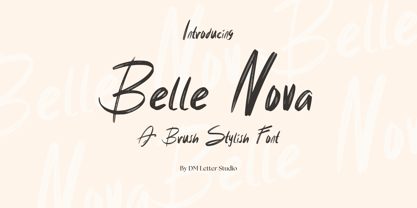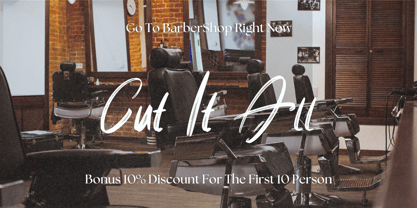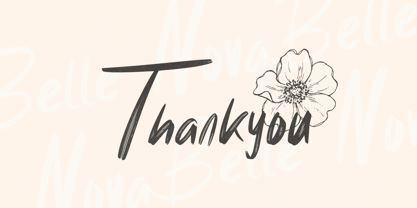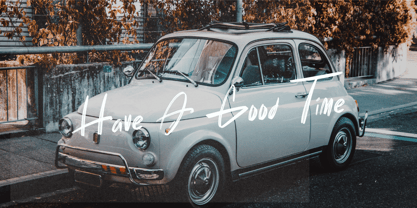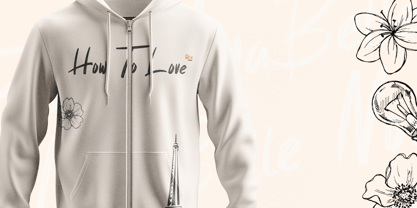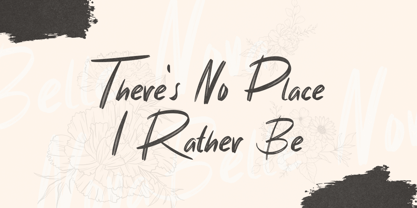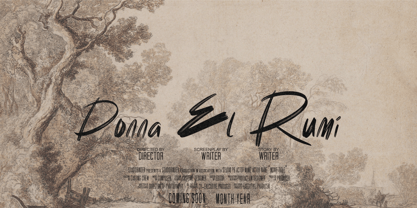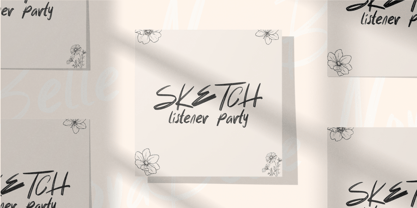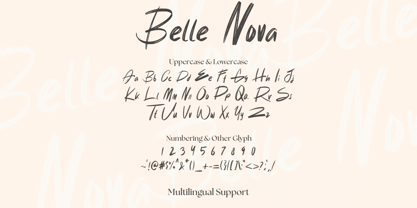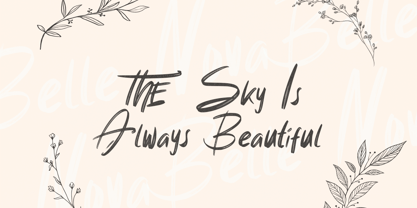
Belle Nova
Belle Nova is a stylish and expressive brush font that blends elegance with a handcrafted feel. Featuring smooth strokes and a modern, artistic touch, this font is perfect for branding, social media graphics, invitations, posters, and more. Whether you're looking to add a personal touch to your designs or create a bold statement, Belle Nova delivers a chic and dynamic aesthetic.
Features:
• Stylish Brush Design: A modern, handcrafted look with smooth, flowing strokes.
• Versatile Application: Perfect for logos, branding, quotes, invitations, and creative projects.
• High-Quality Letterforms: Carefully crafted for readability and aesthetic appeal.
• Uppercase and Lowercase Letters: Provides creative flexibility.
• Ligatures and Special Characters: Enhances the organic handwritten feel.
• Punctuation and Symbols: Comprehensive set for professional design needs.